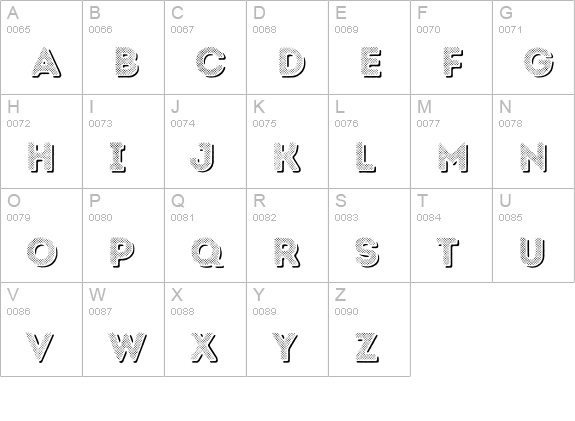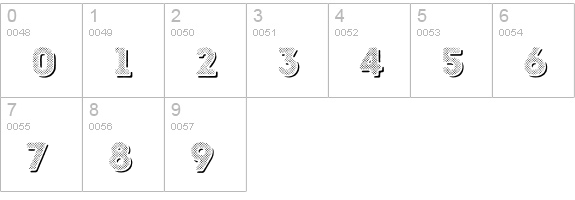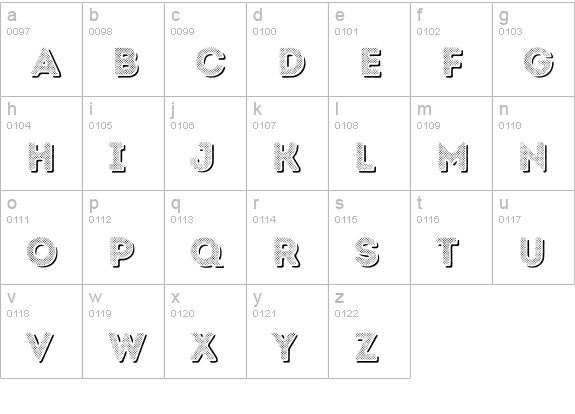
Intro Rust H1 Fill Shade Font Details
Intro Rust H1 Fill Shade is a striking and bold display font that exudes a sense of strength and modernity. Its unique design features intricate shading that adds depth and dimension to each character, making it a perfect choice for eye-catching headlines and branding projects. The font's powerful presence is sure to make a statement and capture the attention of viewers. Best of all, Intro Rust H1 Fill Shade is available for free download at FontsMarket.com, allowing designers and creatives to easily access this versatile typeface for their projects. Whether you're working on a poster, logo, or website design, this font is sure to elevate your work with its bold and dynamic aesthetic. Don't miss out on the opportunity to add Intro Rust H1 Fill Shade to your font collection and take your designs to the next level.